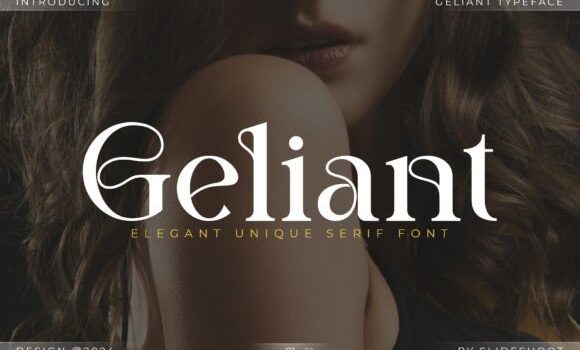
Geliant Font – Free Download Introduction to Geliant Font Geliant Serif is a balanced, smooth, elegant and stylish serif font. 📸 Preview Gallery 6 images 📌 Product Name Geliant Font 👤 Author Idea Studio 📂 Category Explore ⬇️ Download Geliant